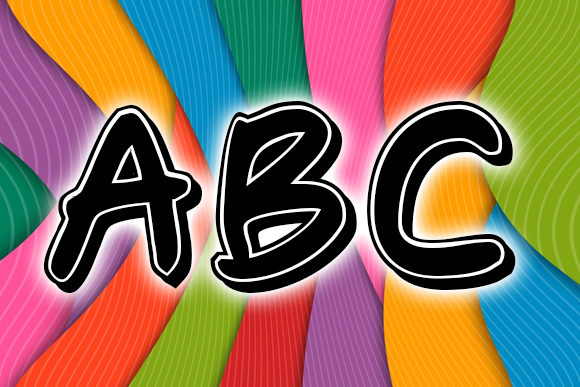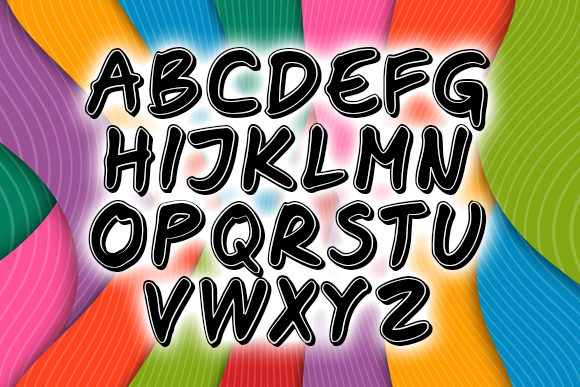
Diana Font: Adding a Touch of Whimsy to Your Crafting Projects
Are you tired of using the same old fonts for your crafting projects? Look no further than Diana Font, a fun and friendly display font that’s sure to add a touch of whimsy to your creations. With its unique playfulness, Diana Font is the perfect choice for crafters, designers, and DIY enthusiasts looking to brighten up their projects.
What is Diana Font?
Diana Font is a display font designed to make a statement. Its fun and friendly vibe makes it perfect for a wide range of crafting projects, from handmade cards and invitations to DIY signs and decorations. The font’s unique playfulness is sure to capture the attention of your audience and add a personal touch to your creations.
Key Features of Diana Font
- Unique Playfulness: Diana Font’s playful design makes it stand out from more traditional fonts. Its fun and quirky vibe is sure to add a touch of personality to your projects.
- Display Font: Diana Font is designed to be used as a display font, making it perfect for headlines, titles, and other attention-grabbing elements.
- Easy to Read: Despite its playful design, Diana Font is easy to read, making it perfect for use in a wide range of crafting projects.
- Versatile: Diana Font can be used in a variety of crafting projects, from handmade cards and invitations to DIY signs and decorations.
Uses for Diana Font
Diana Font is a versatile font that can be used in a wide range of crafting projects. Here are a few ideas to get you started:
- Handmade Cards and Invitations: Add a personal touch to your handmade cards and invitations with Diana Font.
- DIY Signs and Decorations: Use Diana Font to create eye-catching signs and decorations for your home or office.
- Crafting Projects: Diana Font is perfect for use in a wide range of crafting projects, from scrapbooking and journaling to knitting and sewing.
- Digital Projects: Diana Font can also be used in digital projects, such as social media graphics, blog posts, and more.
Tips for Using Diana Font
Here are a few tips for using Diana Font in your crafting projects:
- Use it as a Statement Font: Diana Font is designed to make a statement, so use it as a headline or title font to grab attention.
- Pair it with Other Fonts: Diana Font pairs well with a wide range of other fonts, so feel free to experiment with different combinations.
- Experiment with Colors: Diana Font looks great in a wide range of colors, so don’t be afraid to experiment and find the perfect color for your project.
Diana Font is a fun and friendly display font that’s perfect for adding a touch of whimsy to your crafting projects. With its unique playfulness and versatility, Diana Font is sure to become a favorite among crafters, designers, and DIY enthusiasts. So why not give it a try and see the difference it can make in your next project?